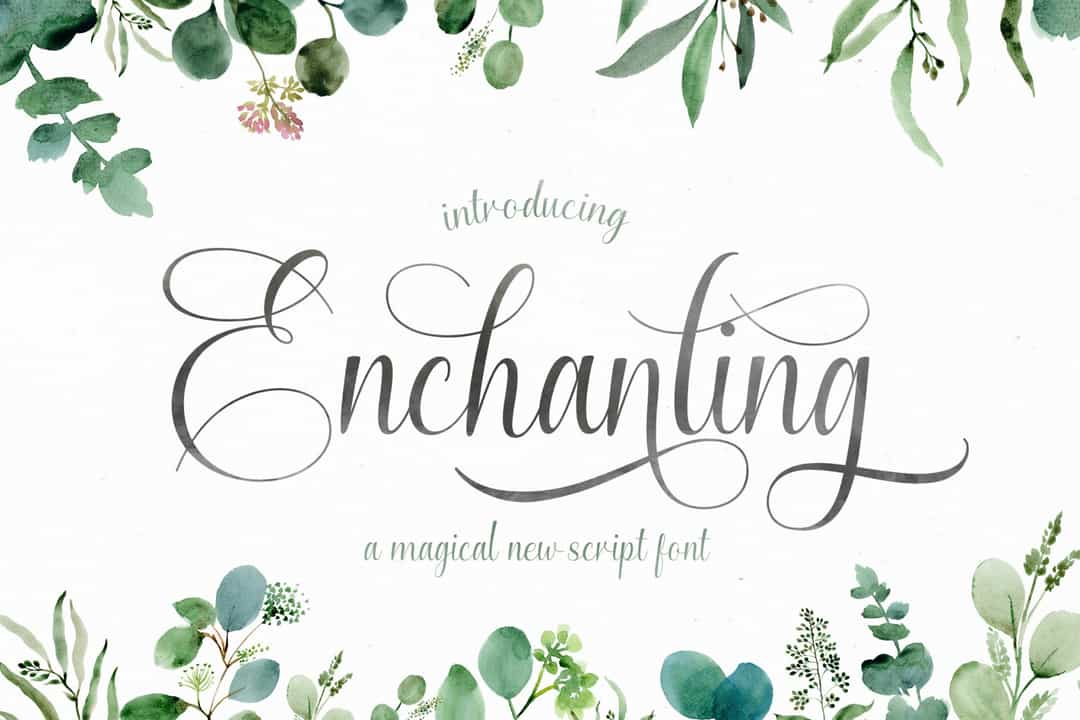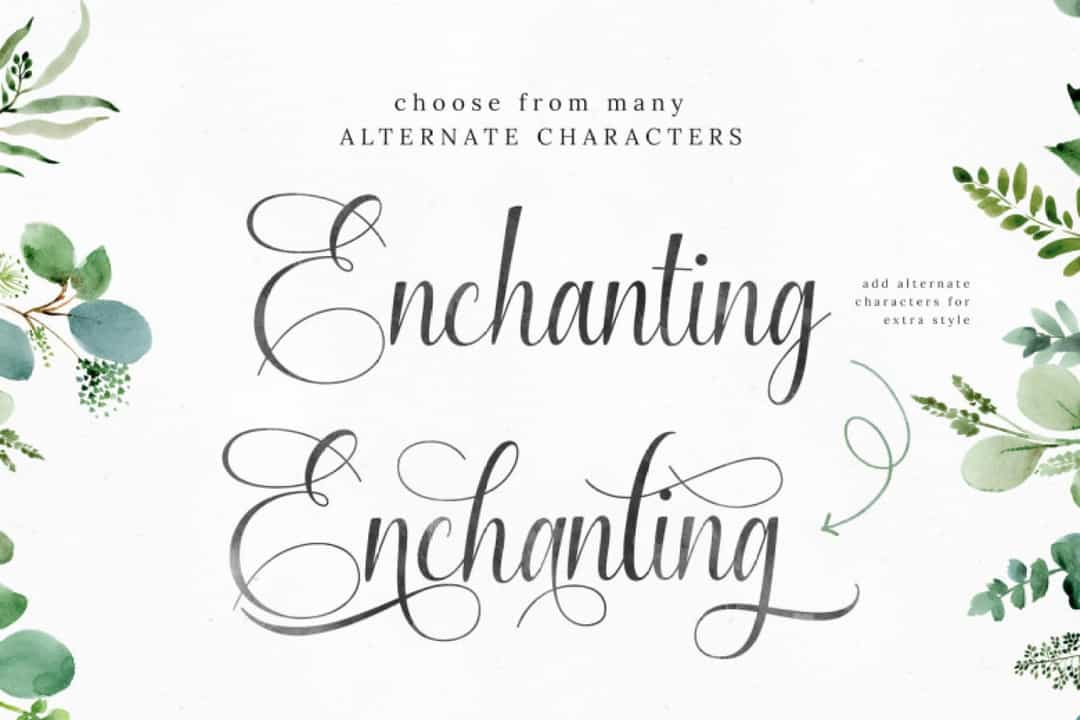
Enchanting is an elegant, classic calligraphy font designed with exceptional beauty. Perfect for creating eye-catching branding, logos and quotes. Each letter boasts its own distinct and stunning look to add life and dimension to your designs! PUA encoded so you’ll have easy access to all letters and characters!